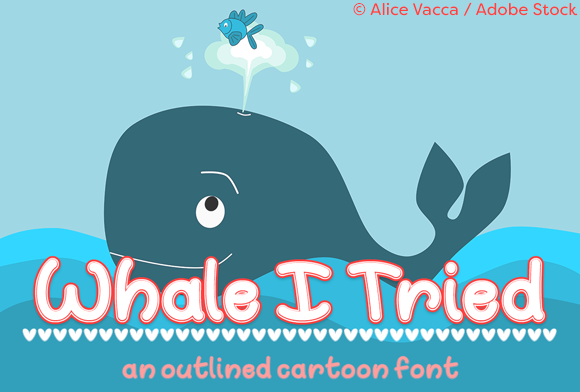
Welcome to the whimsical world of Whale I Tried, a delightful script font that will add a touch of playful charm to your creative projects. Let your imagination soar as you explore the endless possibilities this font offers.
With its graceful curves, hand-drawn style, and a playful touch, Whale I Tried is far from your average font. It's a captivating dance of letters, bringing a sense of lightheartedness and joy to your designs. Each character is meticulously crafted with love, resulting in a font that feels both personal and inviting.
Picture this: Your social media posts come alive with the cheerful bounce of Whale I Tried, instantly grabbing the attention of your followers. Your invitations and greeting cards exude warmth and personality, leaving a lasting impression on your loved ones. And as your little ones embark on their artistic adventures, Whale I Tried becomes their trusty companion, transforming their school projects into masterpieces.
But Whale I Tried isn't just limited to digital spaces. Unleash its creativity in the realm of physical art. Create eye-catching posters and T-shirts that radiate positivity. Decorate your home with charming wall art that reflects your unique style. Let Whale I Tried guide your hand as you design personalized mugs, tote bags, and other delightful accessories.
The possibilities are endless. Whether you're a seasoned designer or a creative enthusiast, Whale I Tried is your perfect partner, ready to infuse your creations with a dash of whimsy and a sprinkle of delight. So, dive into the enchanting world of Whale I Tried and let your imagination run wild.
Oh! Did we forget to mention the secret surprise hidden within Whale I Tried? Type a backslash () followed by a question mark (?) and watch as your text transforms into a charming heart symbol. Spread the love and sprinkle hearts throughout your designs, adding an extra touch of affection.